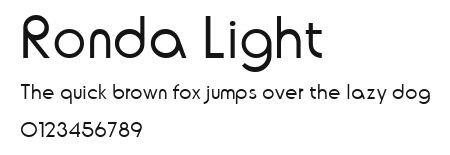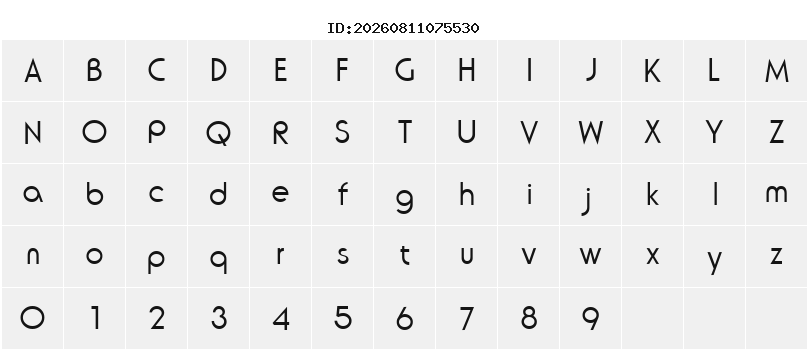
Ronda Light Preview
About Ronda Light.ttf
Ronda Light.ttf is a modern, elegant sans-serif font designed for ultimate readability and visual harmony. Perfect for branding, headlines, web design, and print materials.